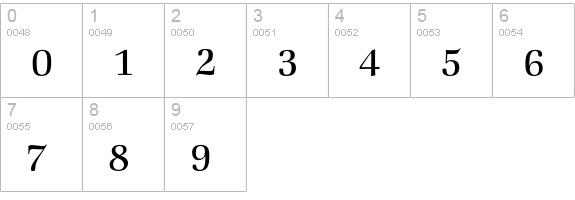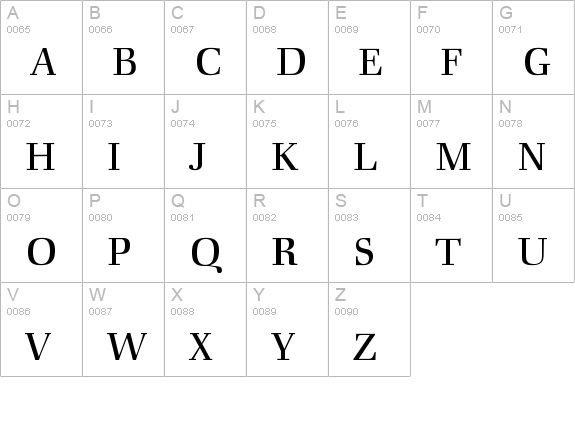
ZapfBookEF-Light is a refined, elegant variant in the ZapfBookEF typeface family \xE2\x80\x94 well suited to elegant body text, refined sub-headings, and luxury branding.
ZapfBookEF-Light font is a modern and elegant typeface that exudes sophistication and professionalism. With its clean lines and subtle curves, this font is perfect for a wide range of design projects, from business documents to invitations and everything in between. The light weight of the font gives it a delicate and airy appearance, making it ideal for adding a touch of refinement to your designs. What makes ZapfBookEF-Light font even more appealing is that it is completely free to download. Yes, you read that right - this high-quality font is available at no cost on FontsMarket.com. So, whether you're a seasoned designer looking to expand your font collection or a newcomer in need of a versatile typeface, ZapfBookEF-Light font is a fantastic choice that won't break the bank. Download it today and elevate your designs with this stylish and sophisticated font.